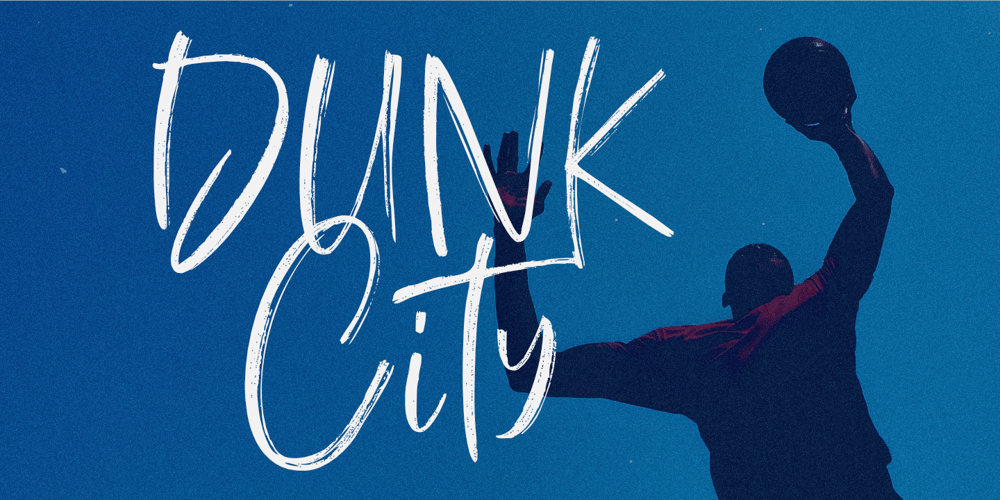
Dunk City Font Family was designed by Aldy Sidik and published by Epiclinez. Dunk City contains 1 styles and family package options. Bring the street to your design projects with this cool brush typeface. Dunk City is a hand brush font that’s perfect for poster, branding, and packaging. With a graffiti-style calligraphy feel, its letters feature a unique style to your designs. The subtle imperfections are designed to make the typeface more lively: it’s the key to opening a whole new world of brushwork.So what’s included : Basic Latin Uppercase and Lowercase Numbers, symbols, and punctuations Multilingual Support. PUA Encoded and fully accessible without additional design software Simple Installations works on PC & Mac Thank You!